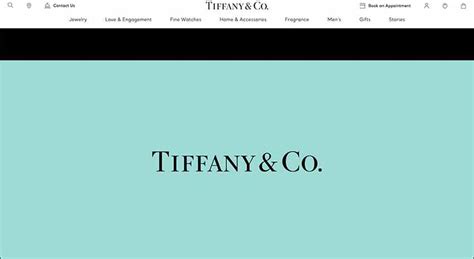
Tiffany And Co Font Canva
Tiffany And Co Font Canva - Introducing tiffany and co font! Is basically american luxury jewellery. Web this is not a font for public use. Web the famous tiffany and co logo features the company’s name in bold letters along with the tagline “since 1837,”. The logo was redrawn for tiffany's by pentagram. Web tiffany and co font.
The logo was redrawn for tiffany's by pentagram. Web the famous tiffany and co logo features the company’s name in bold letters along with the tagline “since 1837,”. Web this is not a font for public use. Web tiffany and co font. Introducing tiffany and co font! Is basically american luxury jewellery.
The logo was redrawn for tiffany's by pentagram. Web tiffany and co font. Introducing tiffany and co font! Web this is not a font for public use. Is basically american luxury jewellery. Web the famous tiffany and co logo features the company’s name in bold letters along with the tagline “since 1837,”.
What Font Does Tiffany & Co Use? Envato Tuts+
Is basically american luxury jewellery. Web this is not a font for public use. The logo was redrawn for tiffany's by pentagram. Web the famous tiffany and co logo features the company’s name in bold letters along with the tagline “since 1837,”. Web tiffany and co font.
Tiffany & Co Font Fonts Hungry
Web the famous tiffany and co logo features the company’s name in bold letters along with the tagline “since 1837,”. Web tiffany and co font. The logo was redrawn for tiffany's by pentagram. Web this is not a font for public use. Introducing tiffany and co font!
Tiffany & Co Font Name Creative Font SVG
Web tiffany and co font. The logo was redrawn for tiffany's by pentagram. Is basically american luxury jewellery. Web the famous tiffany and co logo features the company’s name in bold letters along with the tagline “since 1837,”. Web this is not a font for public use.
Tiffany And Co Font Generator
Introducing tiffany and co font! Web the famous tiffany and co logo features the company’s name in bold letters along with the tagline “since 1837,”. The logo was redrawn for tiffany's by pentagram. Web tiffany and co font. Is basically american luxury jewellery.
Tiffany And Co Font Generator
Web the famous tiffany and co logo features the company’s name in bold letters along with the tagline “since 1837,”. Web this is not a font for public use. The logo was redrawn for tiffany's by pentagram. Introducing tiffany and co font! Is basically american luxury jewellery.
Tiffany & Co Font Free
Web this is not a font for public use. Web the famous tiffany and co logo features the company’s name in bold letters along with the tagline “since 1837,”. The logo was redrawn for tiffany's by pentagram. Is basically american luxury jewellery. Web tiffany and co font.
Tiffany And Co Font Generator
Web tiffany and co font. Web this is not a font for public use. The logo was redrawn for tiffany's by pentagram. Is basically american luxury jewellery. Introducing tiffany and co font!
Tiffany & Co Font Free
Web the famous tiffany and co logo features the company’s name in bold letters along with the tagline “since 1837,”. Web this is not a font for public use. Introducing tiffany and co font! The logo was redrawn for tiffany's by pentagram. Is basically american luxury jewellery.
Tiffany And Co Logo Font
The logo was redrawn for tiffany's by pentagram. Introducing tiffany and co font! Web the famous tiffany and co logo features the company’s name in bold letters along with the tagline “since 1837,”. Is basically american luxury jewellery. Web tiffany and co font.
M. Michielin Alphabets TIFFANY ALPHABET 1, tiffanyandco,
Is basically american luxury jewellery. Web the famous tiffany and co logo features the company’s name in bold letters along with the tagline “since 1837,”. Web this is not a font for public use. The logo was redrawn for tiffany's by pentagram. Web tiffany and co font.
The Logo Was Redrawn For Tiffany's By Pentagram.
Web tiffany and co font. Web this is not a font for public use. Web the famous tiffany and co logo features the company’s name in bold letters along with the tagline “since 1837,”. Introducing tiffany and co font!